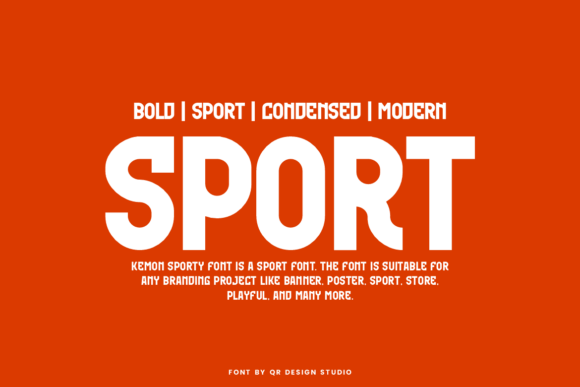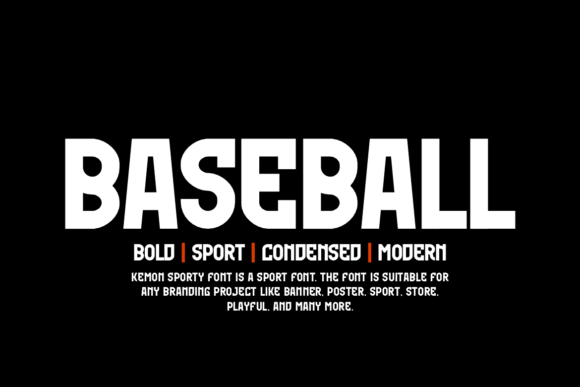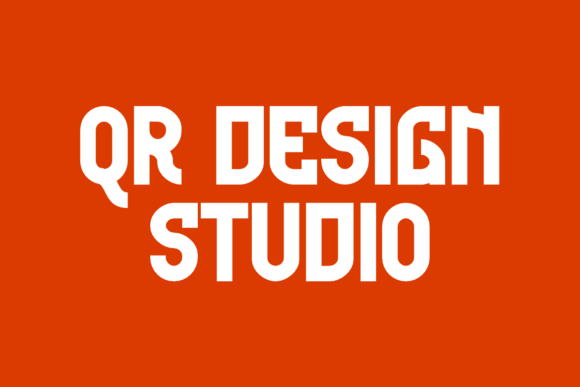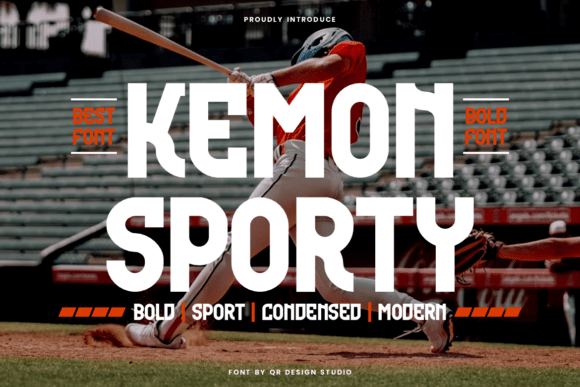
Introduction to Kemon Sporty Font
Kemon Sporty is a cool and modern display font.
Key Features of Kemon Sporty Font
Why Choose Kemon Sporty Font?
Kemon Sporty Font offers exceptional quality and versatility, making it a valuable addition to your design toolkit. Whether you’re creating for personal projects or commercial use, Kemon Sporty Font delivers professional results.